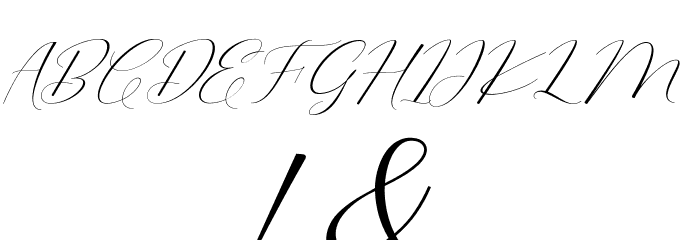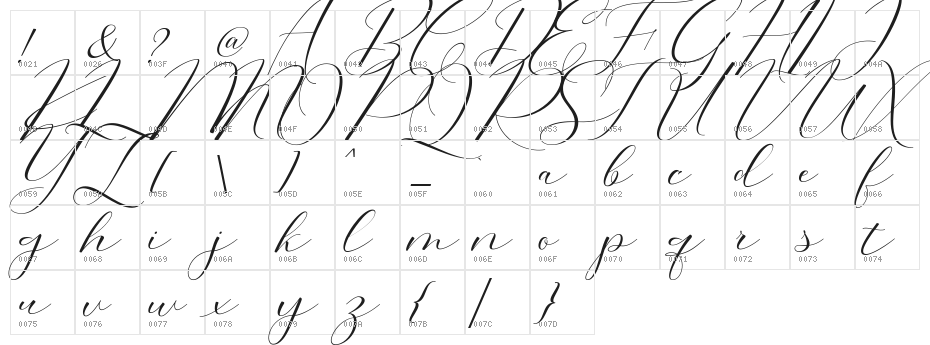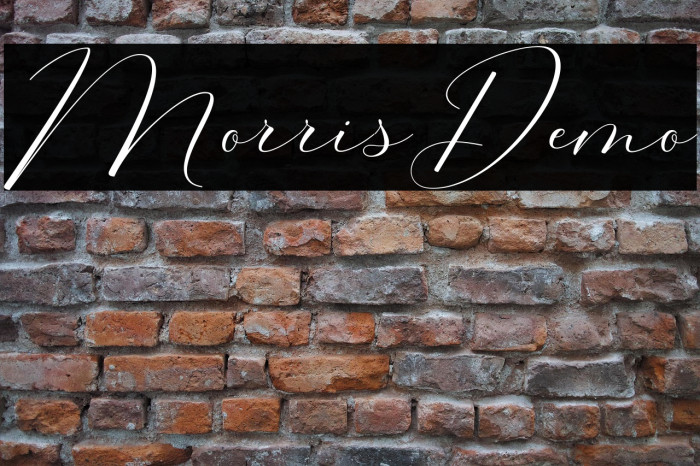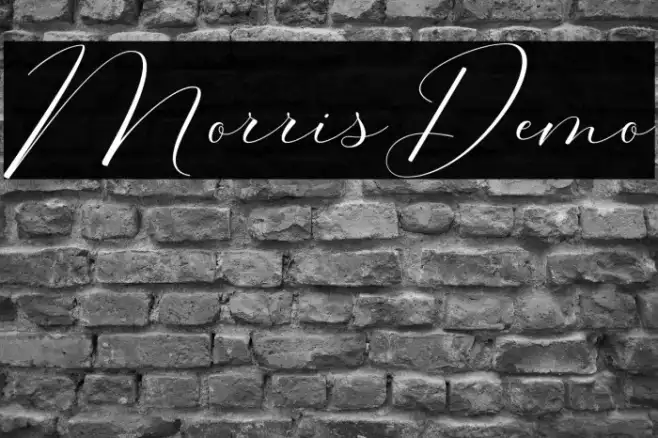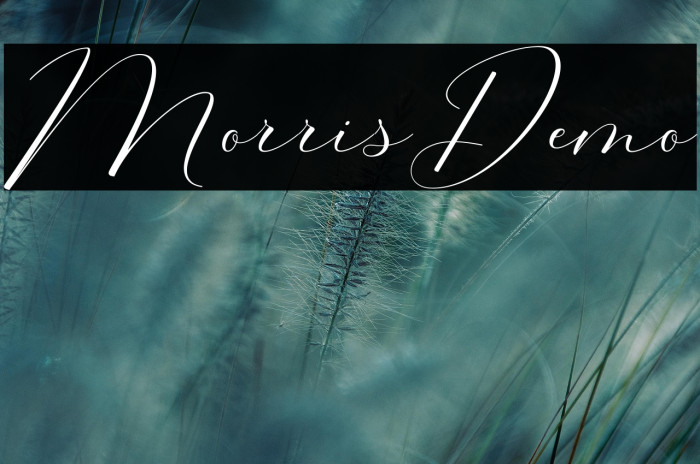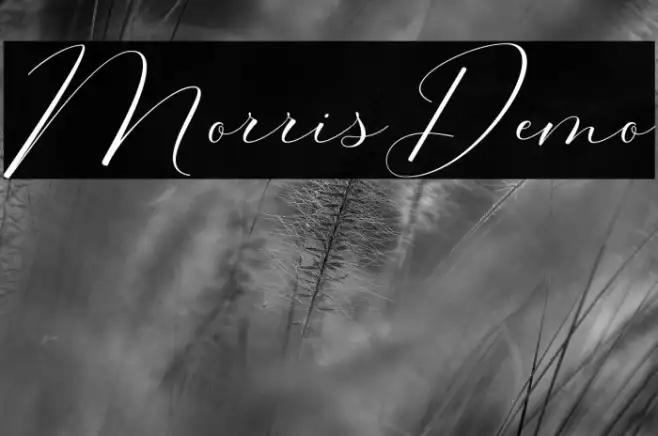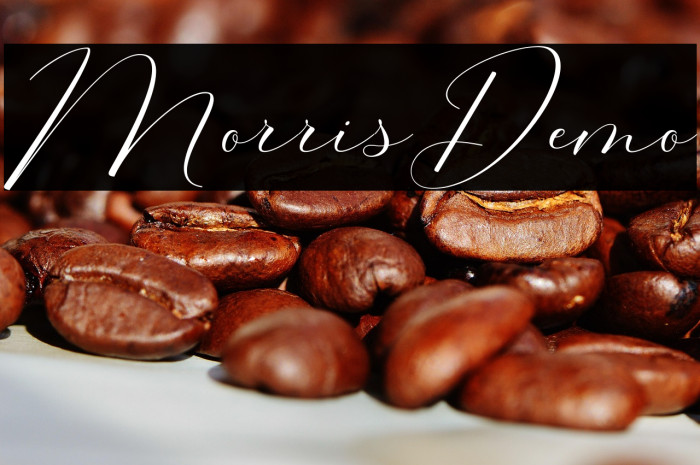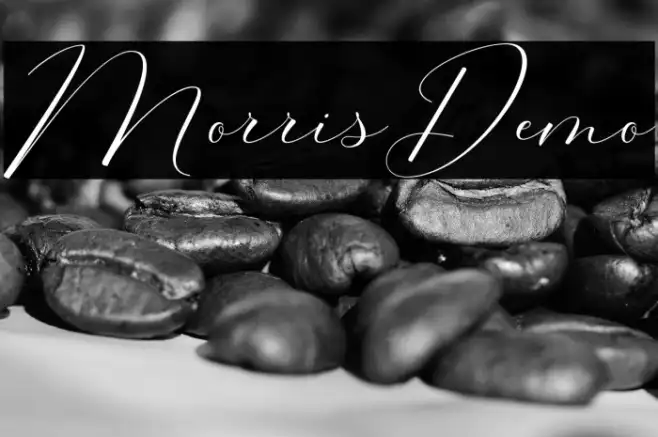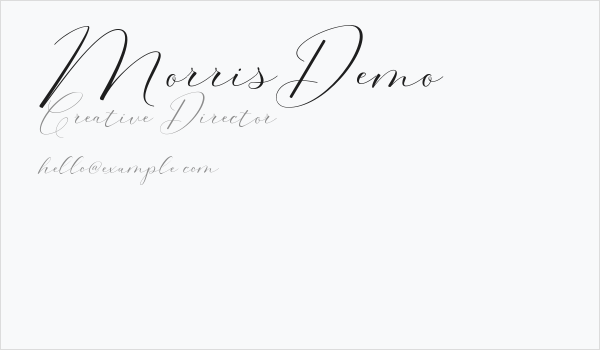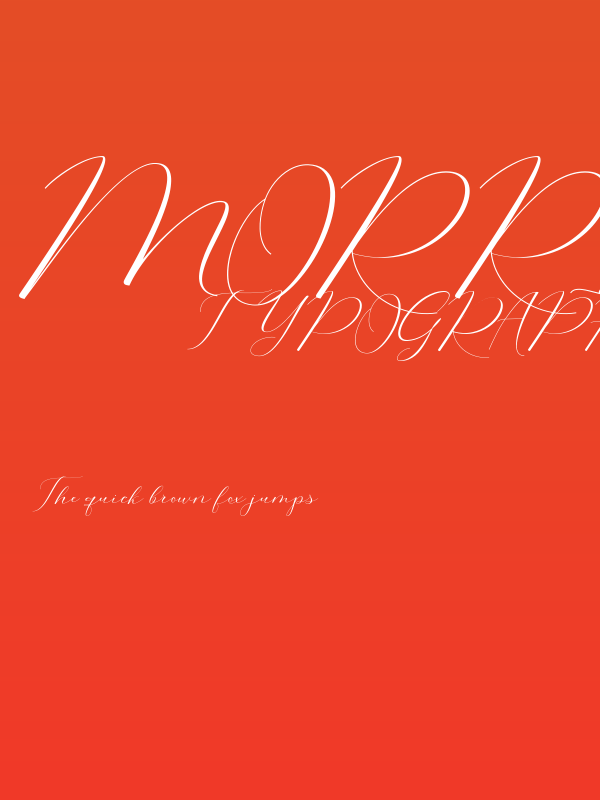
MorrisDemo Font
MorrisDemo Description
This elegant script font features fluid, cursive strokes that convey a sense of sophistication and grace. The uppercase letters are characterized by sweeping lines and delicate curves, while the lowercase letters maintain a consistent flow with a slightly more understated style. The font's thin lines and high contrast between thick and thin strokes add to its refined appearance. The overall design is reminiscent of classic calligraphy, making it suitable for formal invitations, branding, and decorative purposes. The spacing between characters is balanced, allowing for readability while maintaining an artistic flair.
| Proposed Projects | Wedding invitations, luxury branding, greeting cards, elegant logos, and decorative headings. |